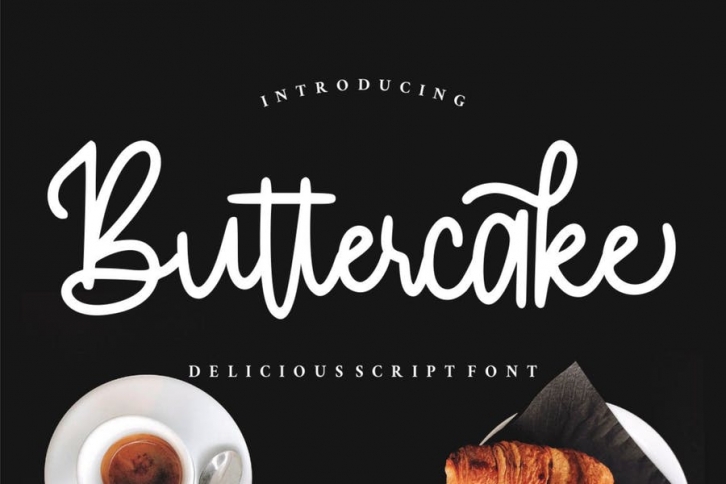
Introducing Buttercake
Buttercake born from bold and fun style fonts. With many differenst swashes you need for the great work ever. That's available on other file from letter A-Z and a-z.
Versatile for design poster, logo, branding, label, quote, headline profil, banner, t-shirt design, packaging, magazine, brochure, and many more your amazing work with this fonts.
• Stylistic Alternates